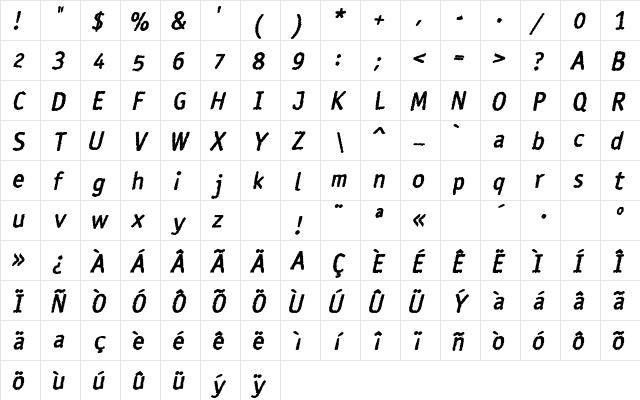
Rosango BoldItalic Font Preview
Design Context for Rosango Typeface
Rosango offers clean, dependable letterforms without strong stylistic allegiance, making it a practical choice for designers who need flexibility. The dynamic lean of this cut emphasises speed and emphasis in any layout. The heavy weight commands attention and anchors typographic hierarchies.
Pro Tip: Try Rosango for annotation and caption copy alongside an upright companion — the contrast in angle creates a dynamic but ordered typographic system.